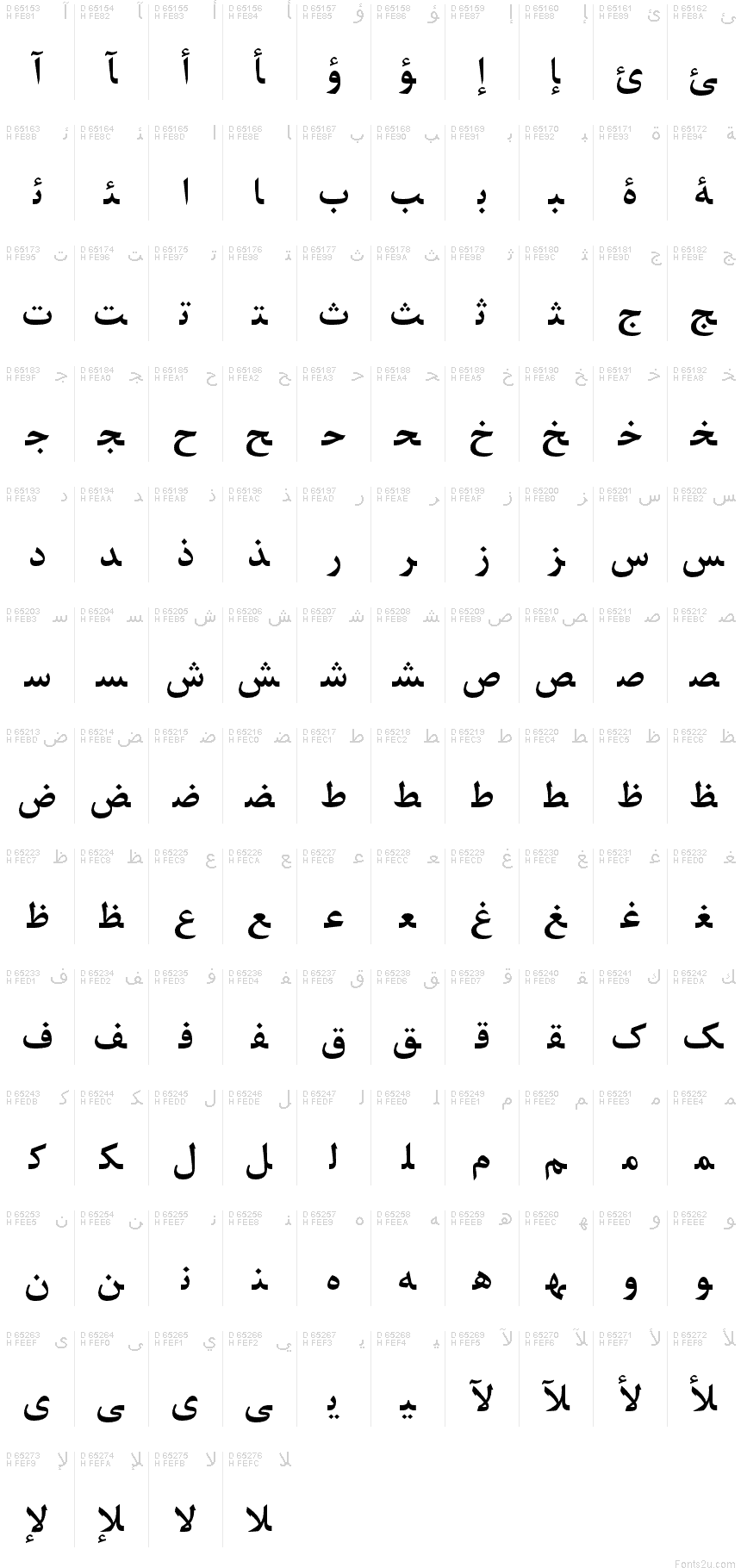
Nazanin Bold is a free bold Arabic typeface with flowing joins and broad, rounded forms. Its strong weight is softened by tapered strokes and open inner spaces. The lettering feels formal but not stiff, with a steady rhythm suited to extended Persian or Arabic text.
Readers of Persian and Arabic publications will find its traditional structure familiar. It suits book covers, editorial pages, and cultural event materials because the dense strokes give text a firm printed texture. On packaging and institutional branding, the same rounded forms can support an established, literary identity.